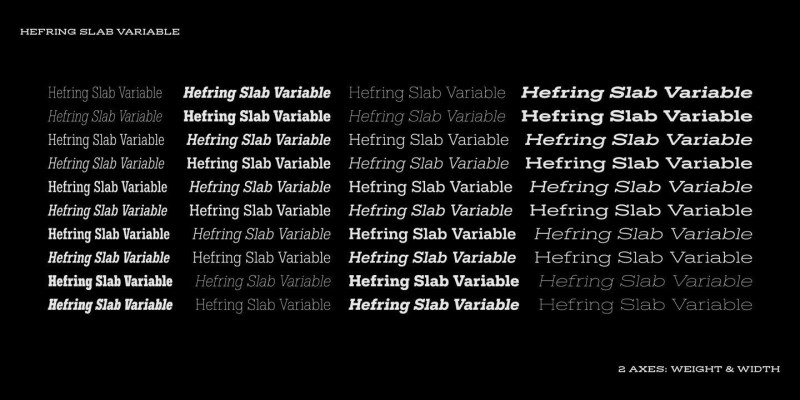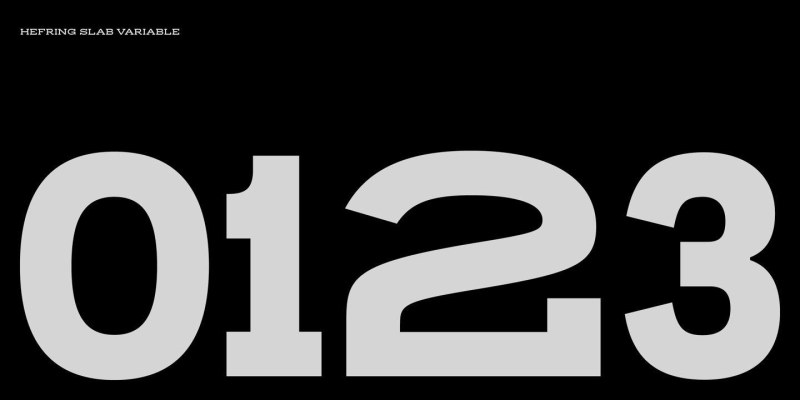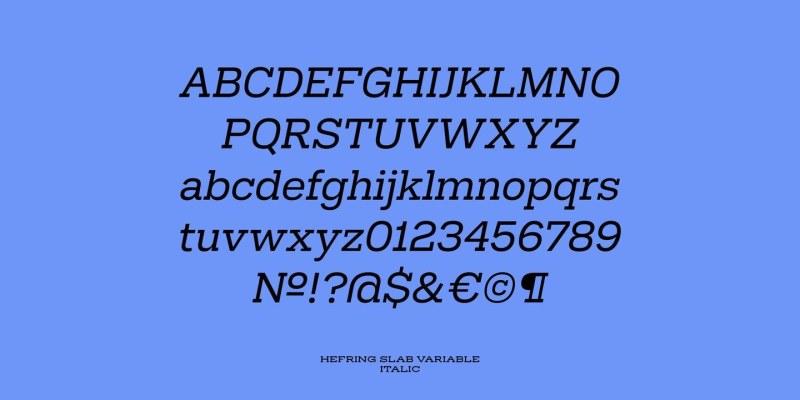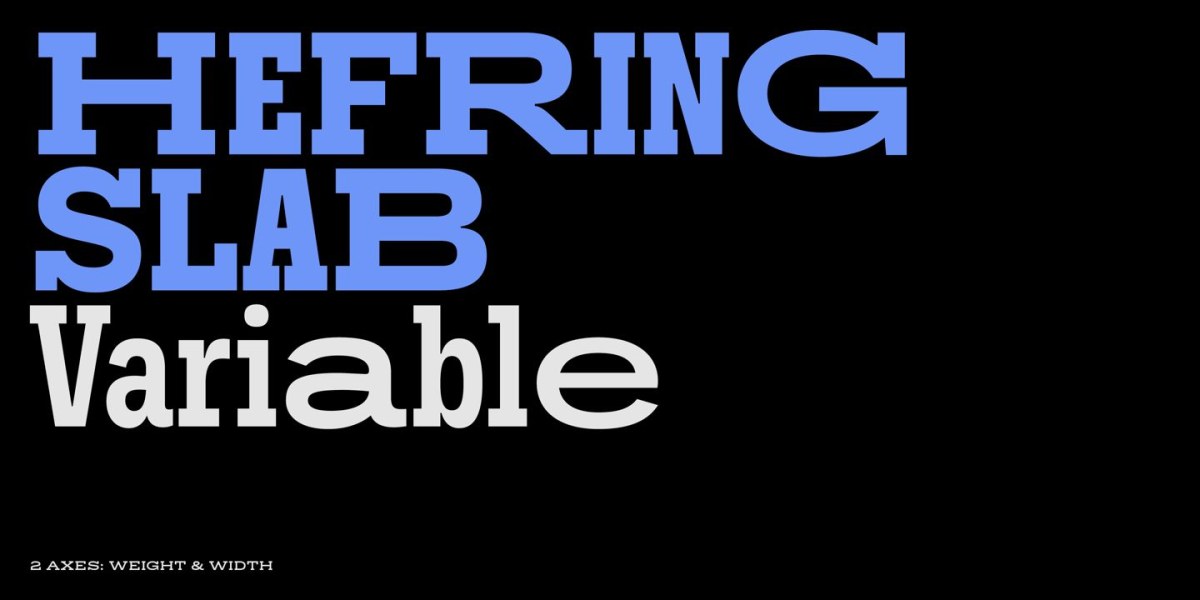
Hefring Slab Variable Font Family
Hefring Slab Variable is a modern Slab Serif. Based on simple geometry, it has minimal stroke contrast, solid serif presence and a uniform thickness of strokes. Inspired by the work of the renowned Margaret Vivienne Calvert, Hefring Slab Variable is robust, clear and functional. It supports Latin-based languages, available in Regular and Italic and allows you to create custom weights within the versatile width and weight parameters.
Where Hefring Slab Variable Font Family works best
Sports & outdoor brands
Slab serifs like Hefring Slab Variable Font Family feel sturdy and confident — perfect for athletic, outdoor and automotive branding.
Editorial headlines
Strong slabs anchor magazine headlines and blog titles.
Packaging
Coffee, craft beer and hardware packaging often lean on slab serifs for a trustworthy look.
What is Hefring Slab Variable Font Family good for?